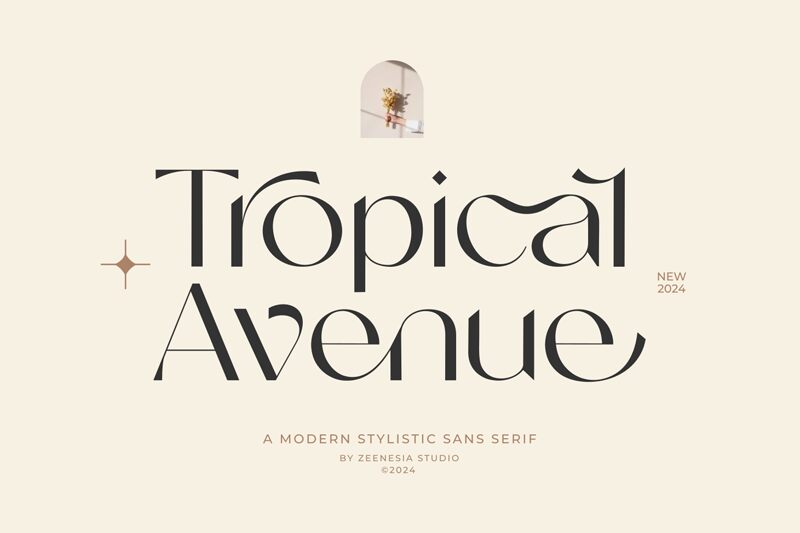
Tropical Avenue font by Zeenesia Studio is a free sans serif font with modern and minimalist characteristics. It has geometric influences, subtle curves, and refined looks.
This font can be used for branding, posters, social media, advertising, websites, headlines, packaging, event promotion, mobile apps, magazines, and book covers. The font is free for personal use. For commercial use, purchase a license or make a donation to use it in your company or agency legally.